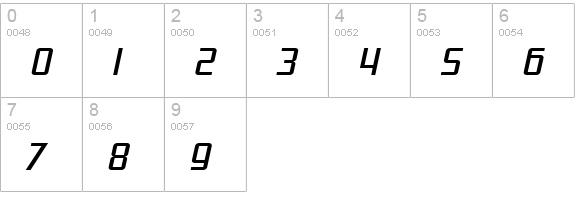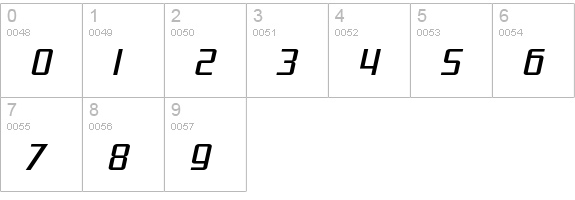
SF Theramin Gothic Condensed Oblique Font Details
SF Theramin Gothic Condensed Oblique is a distinctive, condensed-width, italic variant in the SF typeface family \xE2\x80\x94 well suited to design and typography projects.
SF Theramin Gothic Condensed Oblique is a stunning font that effortlessly combines elements of science fiction and gothic aesthetics. Its condensed design exudes a sense of sleekness and modernity, while its oblique slant adds a touch of dynamic energy. This font is perfect for creating captivating headlines, striking logos, and eye-catching designs. With its clean lines and sharp edges, SF Theramin Gothic Condensed Oblique is a versatile typeface that can be used in a variety of creative projects. Whether you're designing a futuristic poster, a mysterious book cover, or a high-tech website, this font will instantly elevate your work to the next level. What sets SF Theramin Gothic Condensed Oblique apart is not just its unique style, but also its accessibility. This font is freely available to download at FontsMarket.com, allowing designers and creatives of all backgrounds to easily access and use it in their projects. Its free availability ensures that everyone can enjoy the benefits of this exceptional font without any limitations. Don't miss out on the opportunity to enhance your designs with SF Theramin Gothic Condensed Oblique. Download it for free today at FontsMarket.com and unlock a world of possibilities for your creative endeavors.